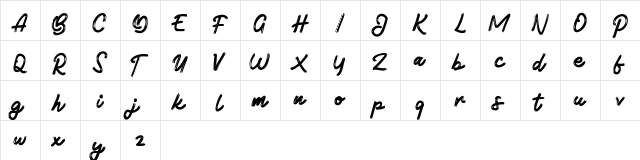
Botade FREE Regular
Design Context for Botade FREE Typeface
Botade FREE is a composed and adaptable typeface that performs quietly and consistently across a wide range of design contexts.